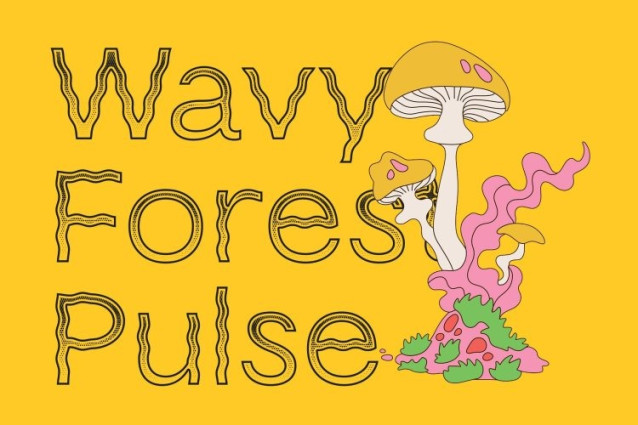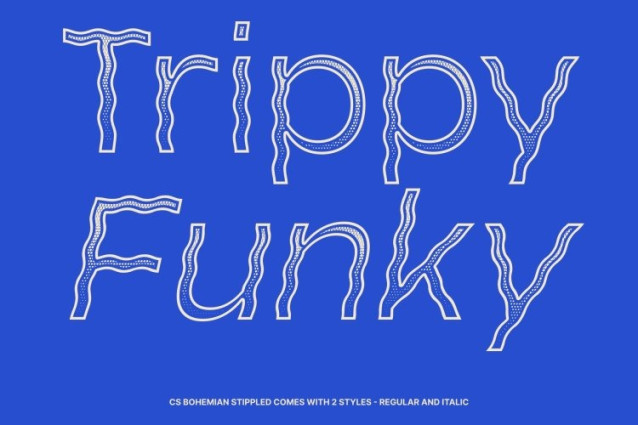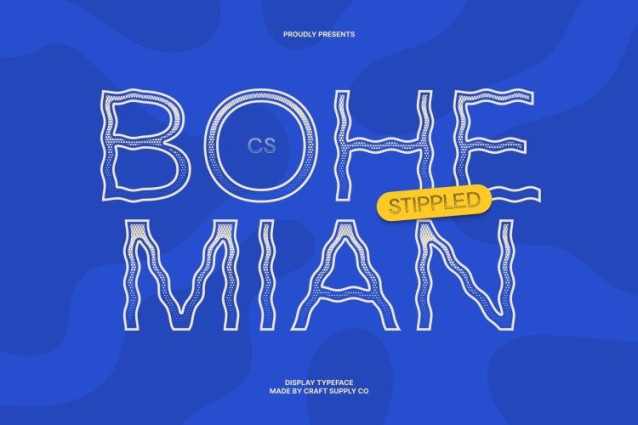
CS Bohemian Stippled Font
CS Bohemian Stippled Font – This is a modern sans-serif font that merges sleek contemporary structure with expressive psychedelic shapes. Its letterforms feature dynamic curves, fluid twists, and visually playful distortions that create a bold and experimental character. The clean sans-serif foundation keeps the design modern and structured, while the psychedelic influence adds a vibrant and unconventional personality.
Dynamic Shapes for a Bold Visual Impact
The font’s psychedelic styling introduces energetic movement and rhythmic forms that immediately capture attention. Flowing curves and unexpected contours transform traditional sans-serif proportions into something imaginative and expressive. This creates a striking visual effect that feels both artistic and modern, making the font ideal for designs that aim to stand out.
Distinctive Stippled Texture for Artistic Character
Enhanced with a stippled effect, the font gains a dense dotted texture inspired by classic stippling and ink-dot illustration techniques. This textured layer adds depth and handcrafted charm to the letterforms, giving them an engraved and vintage-inspired feel. The dotwork detail balances the futuristic psychedelic shapes with a subtle retro artistic touch.
Perfect for Creative and Experimental Design
This is ideal for projects that embrace bold creativity and expressive typography. It works beautifully for music posters, festival graphics, branding, editorial headlines, and experimental visual identities. By combining modern minimalism, psychedelic energy, and textured detail, this font delivers a distinctive typographic voice that feels vibrant, imaginative, and unforgettable.